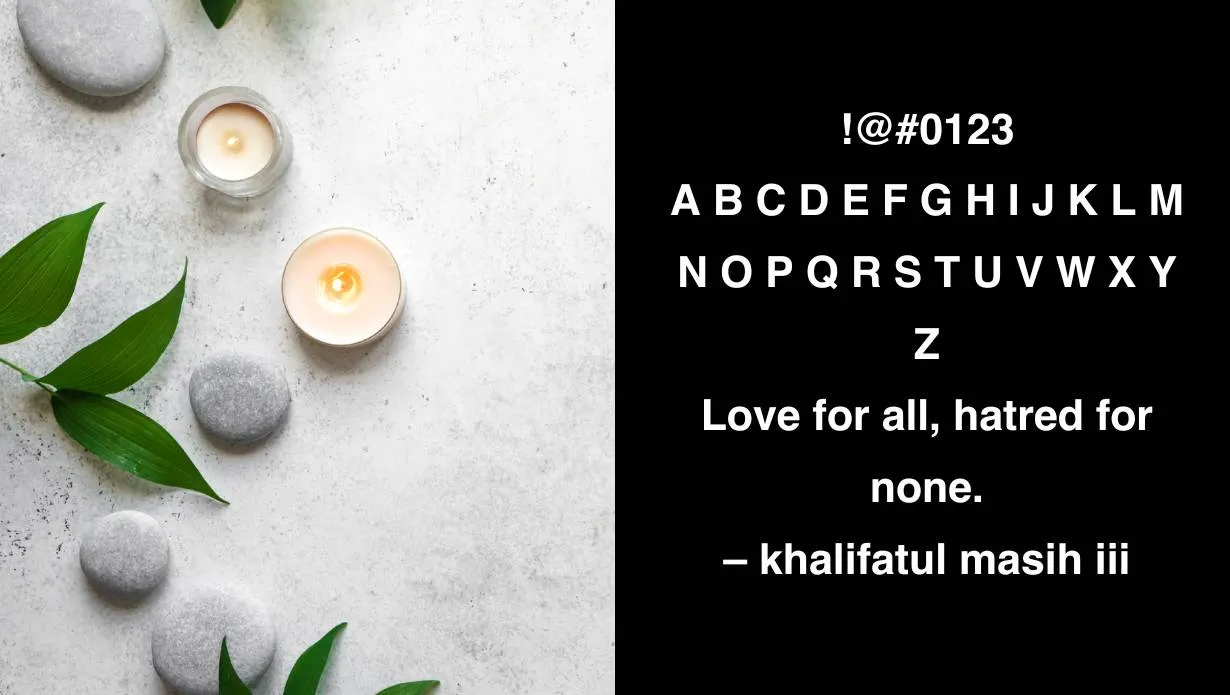
Crate & Barrel is a popular store that sells furniture and home decor. The company was founded in 1962, and the font was released in 1963. The font is named after the company’s founder, Gordon Segal. The font is a sans-serif typeface with a strong geometric structure.
This font includes glyphs for all Latin-based languages, as well as Cyrillic and Greek.
Crate & Barrel Font Family